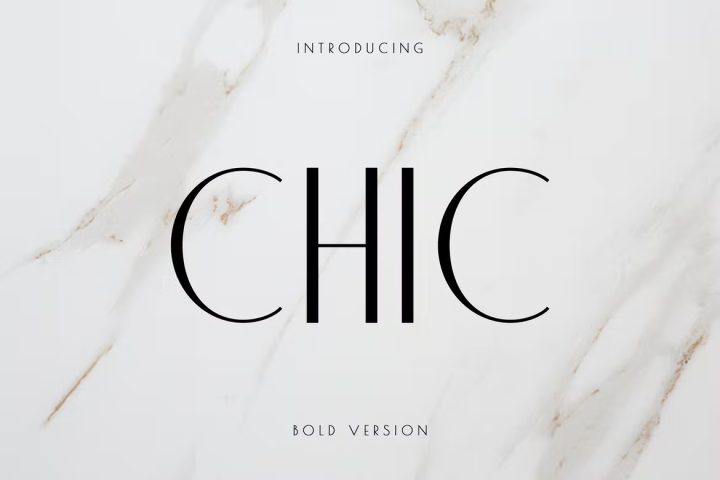
Sans Serif Font
Elegant Sans Serif typeface.
Chic Sans Serif typeface that contains upper and lowercase characters, number 0-9 and a range of punctuation and symbols (OTF, TTF).